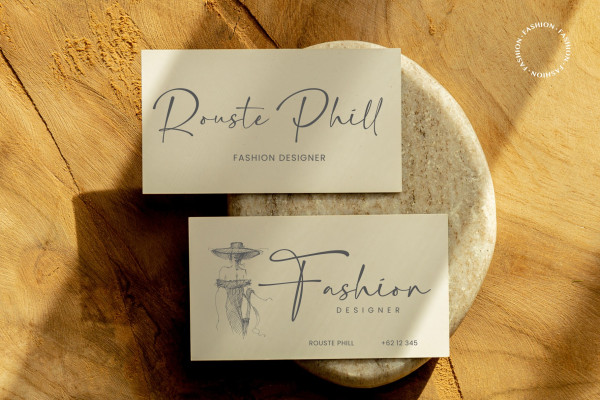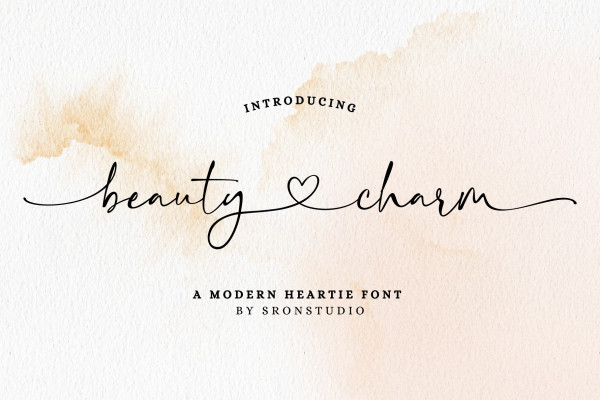
Beauty Charm Font
Beauty Charm Font, a charming romantic font that encapsulates the essence of love and affection. This font is designed to evoke emotions of warmth and tenderness, making it the perfect choice for projects that celebrate love, relationships, and special occasions. With its graceful letterforms and delicate curves, “Dating Month” adds a touch of elegance and intimacy to any design. Whether you’re creating wedding invitations, love letters, or any project that requires a romantic touch, this font will beautifully convey your message. Its versatility allows it to be used in various creative contexts, from branding to social media graphics. Embrace the romantic spirit with “Dating Month” and let love shine through your designs.